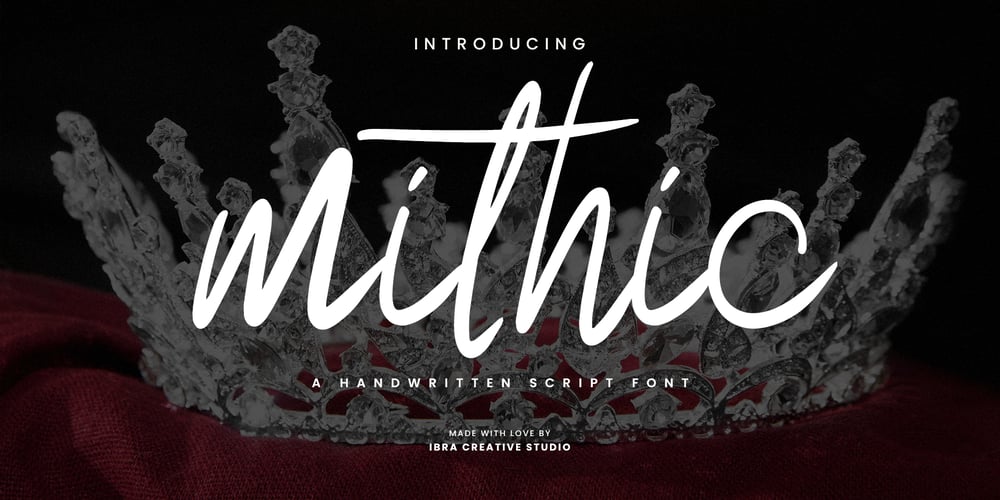
Mithic Font Family was designed by Roisatul Azizah and published by IbraCreative. Mithic contains 1 styles and family package options. Mithic, a captivating handwritten script font, effortlessly combines fluidity and grace, breathing life into every stroke. Its meticulous cursive detailing reflects a perfect balance between elegance and informality, making it an ideal choice for projects seeking a touch of personalized charm. The individuality of each character in Mithic resonates with authenticity, conveying a sense of warmth and human touch. Whether used in invitations, branding, or creative displays, Mithic captures the essence of handwritten beauty, bringing a timeless and personal element to the world of typography. With its versatile nature and organic flow, Mithic stands as a testament to the artistry of hand-scripted fonts, offering a unique and enchanting presence to any design endeavor.